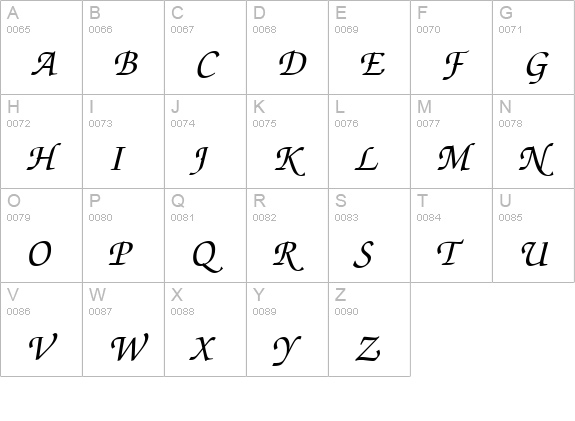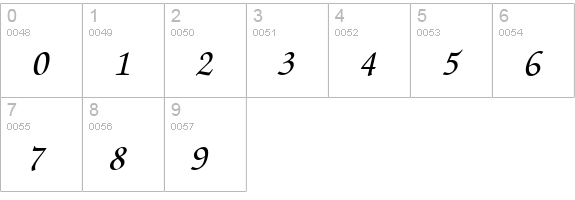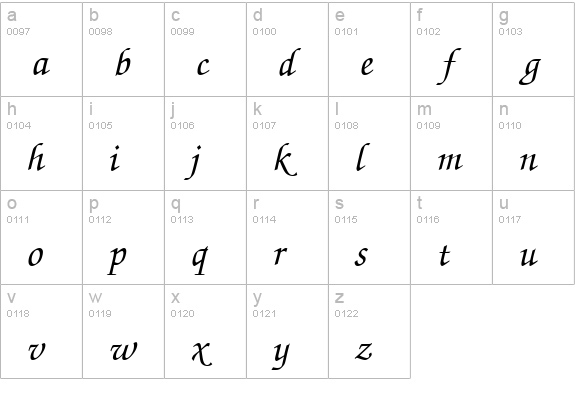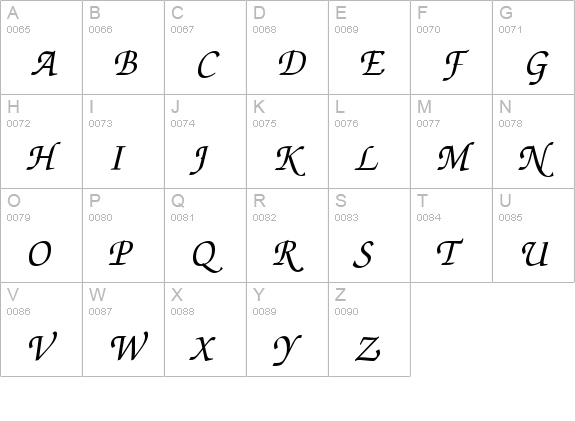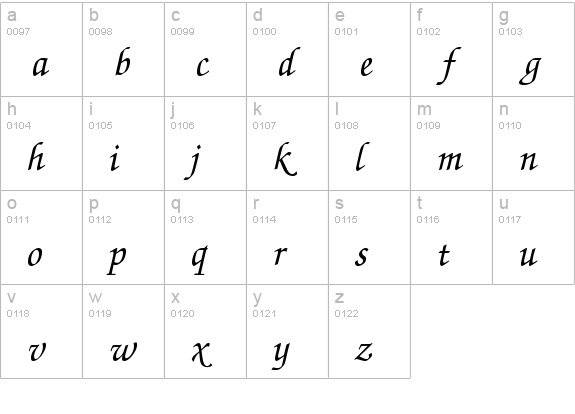
FlorenceScript-Regular Font Details
FlorenceScript-Regular is the standard, neutral variant in the FlorenceScript typeface family \xE2\x80\x94 well suited to general body text, paragraphs, and standard typographic work.
FlorenceScript-Regular is an elegant and sophisticated font that exudes charm and grace. Its flowing and graceful curves make it perfect for adding a touch of elegance to any design project. This font is versatile and can be used for various purposes such as invitations, logos, branding, and more. Best of all, FlorenceScript-Regular is available for free download at FontsMarket.com. Whether you are a designer looking to add a touch of sophistication to your projects or a business owner in need of a stylish font for your branding, FlorenceScript-Regular is the perfect choice. Download this beautiful font today and elevate your designs to the next level.